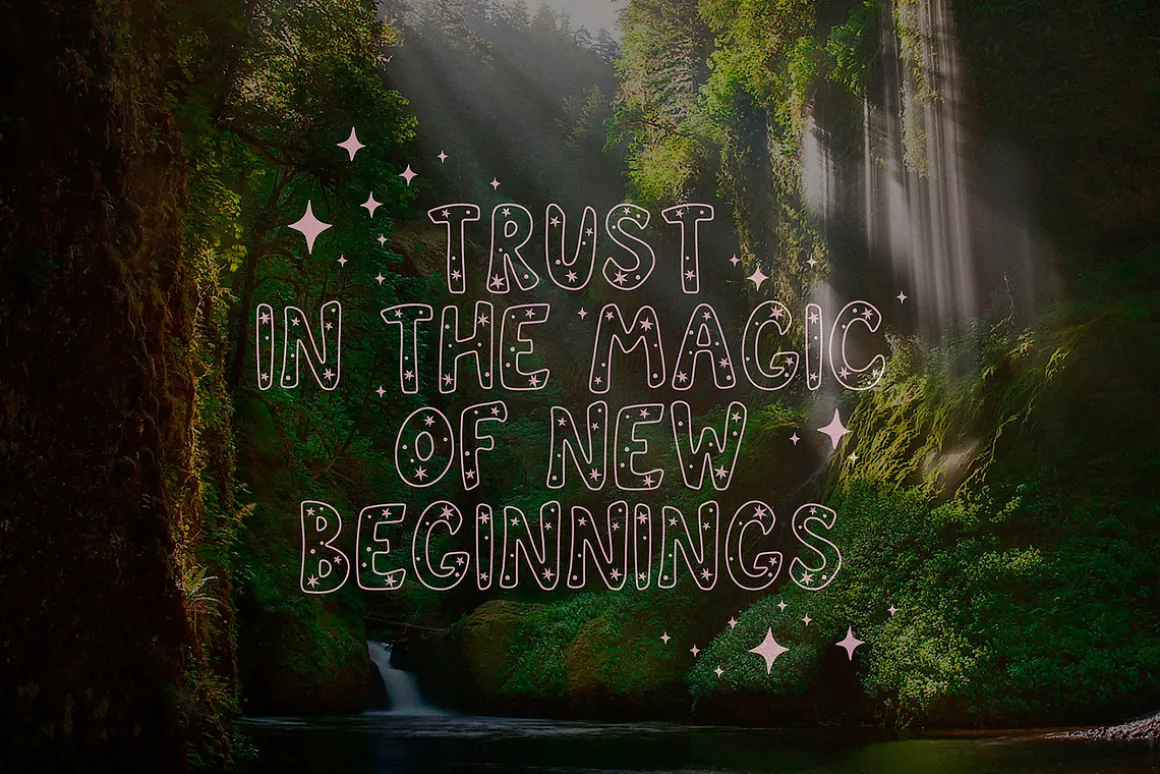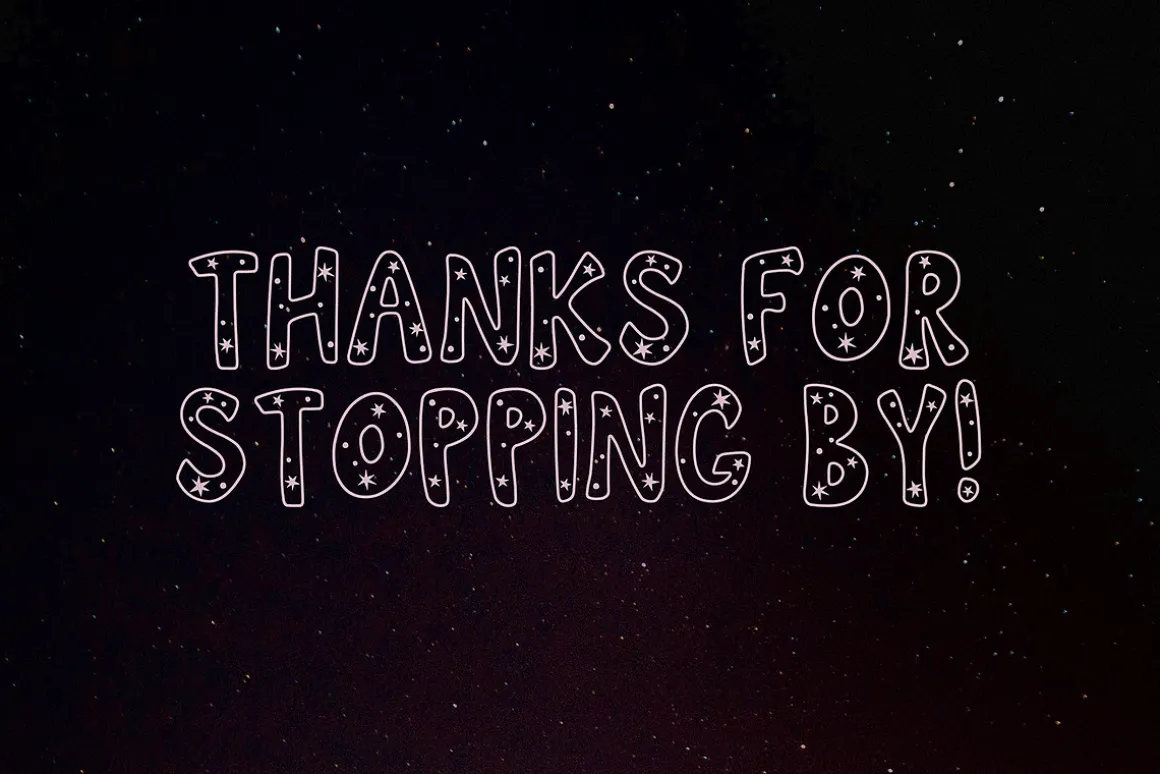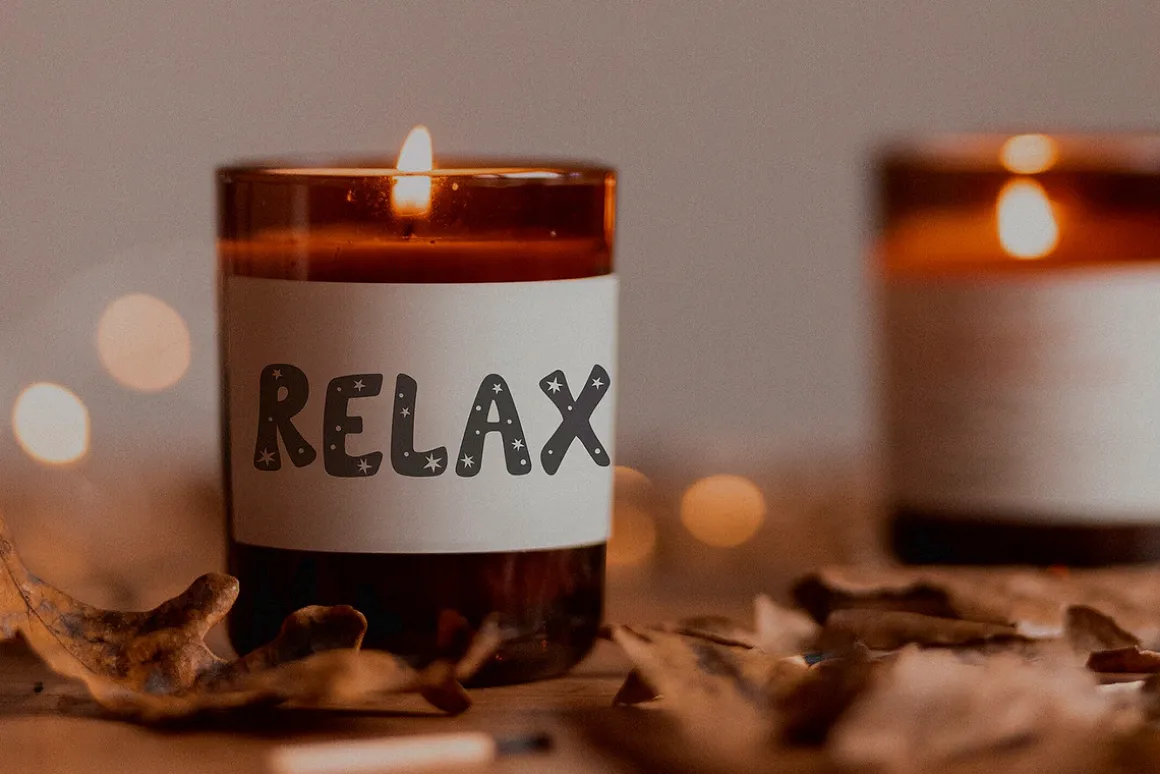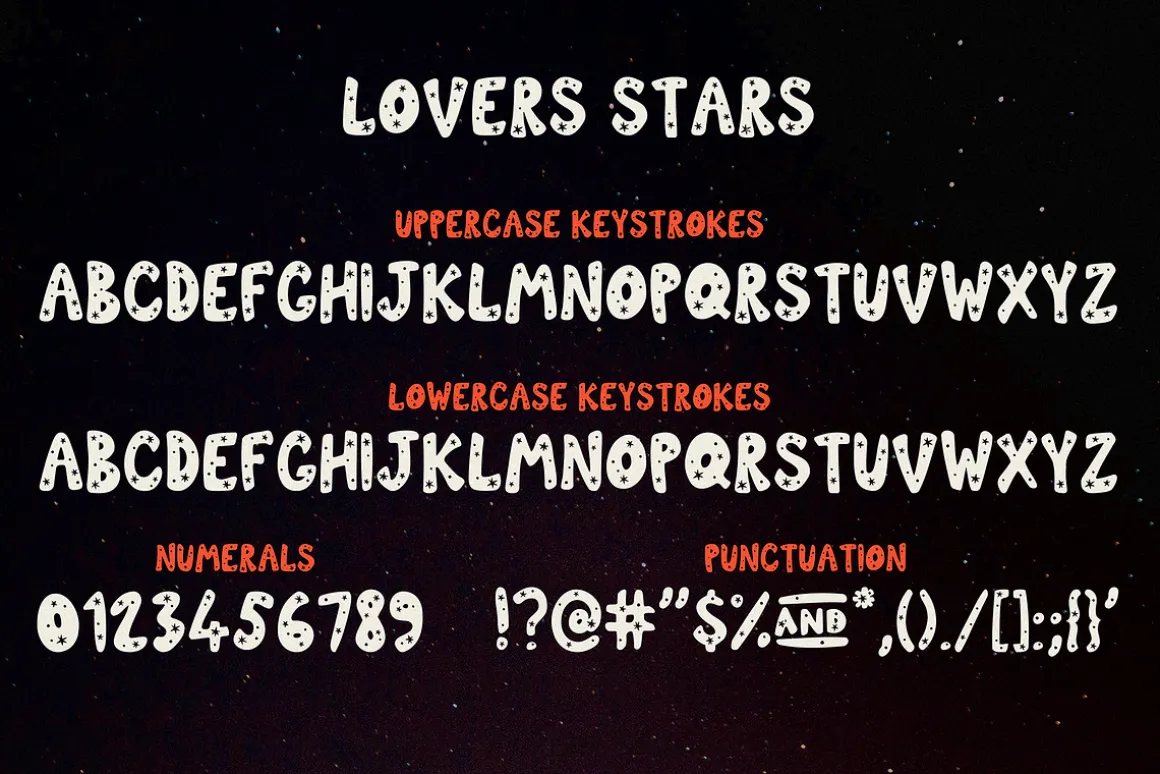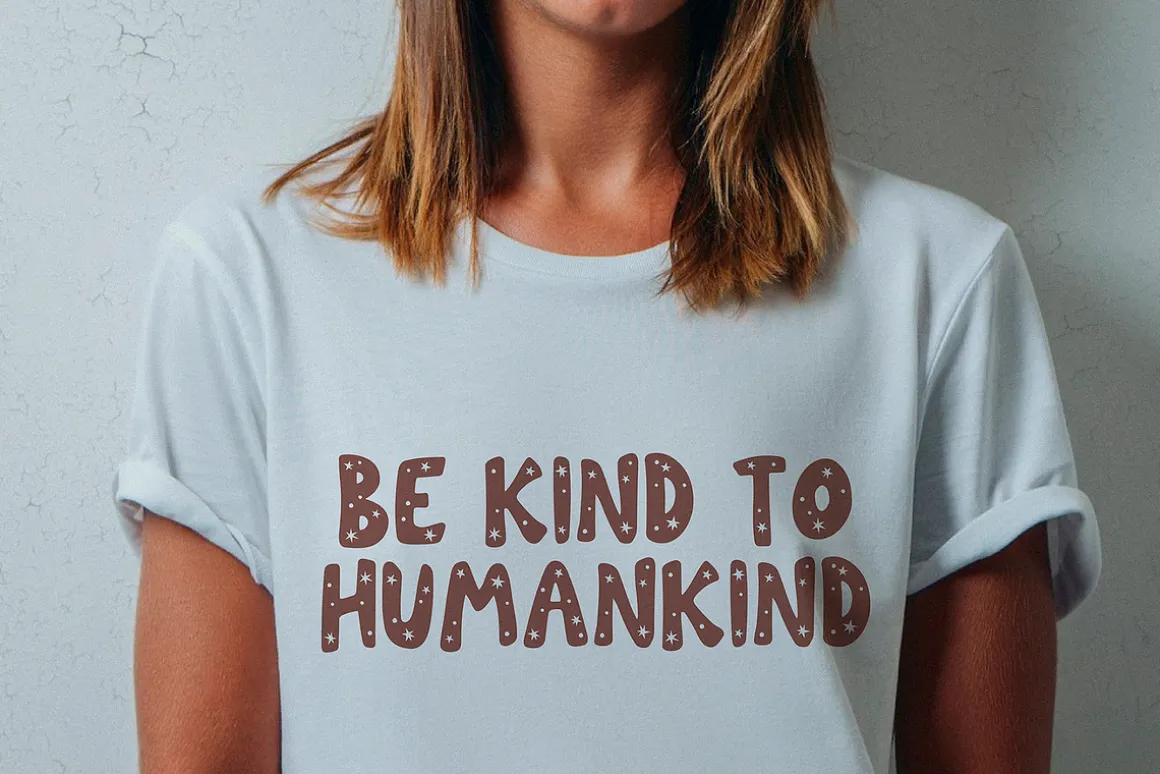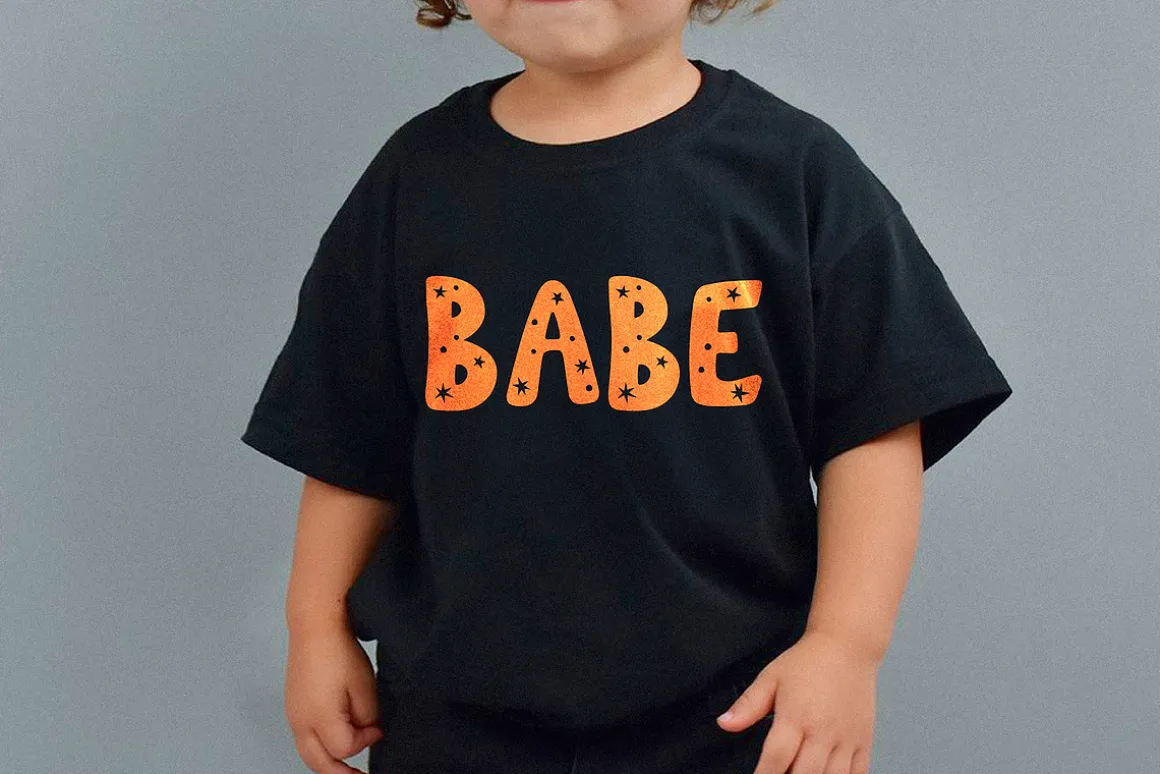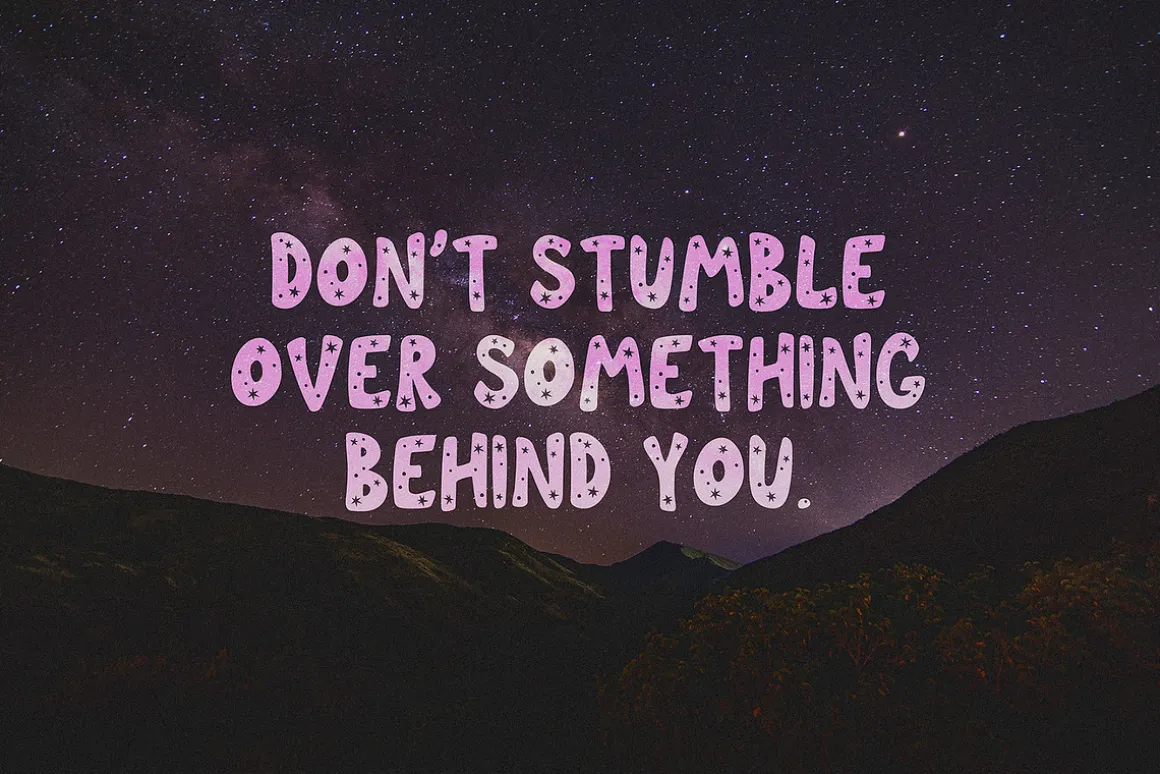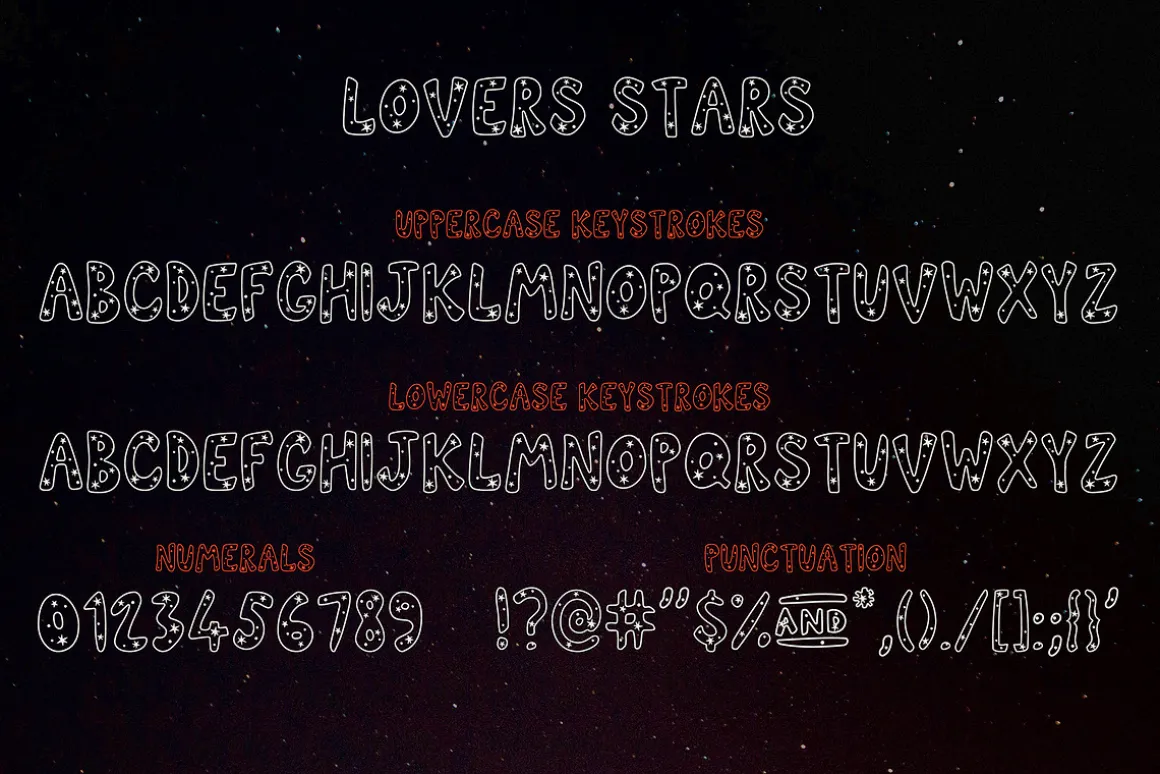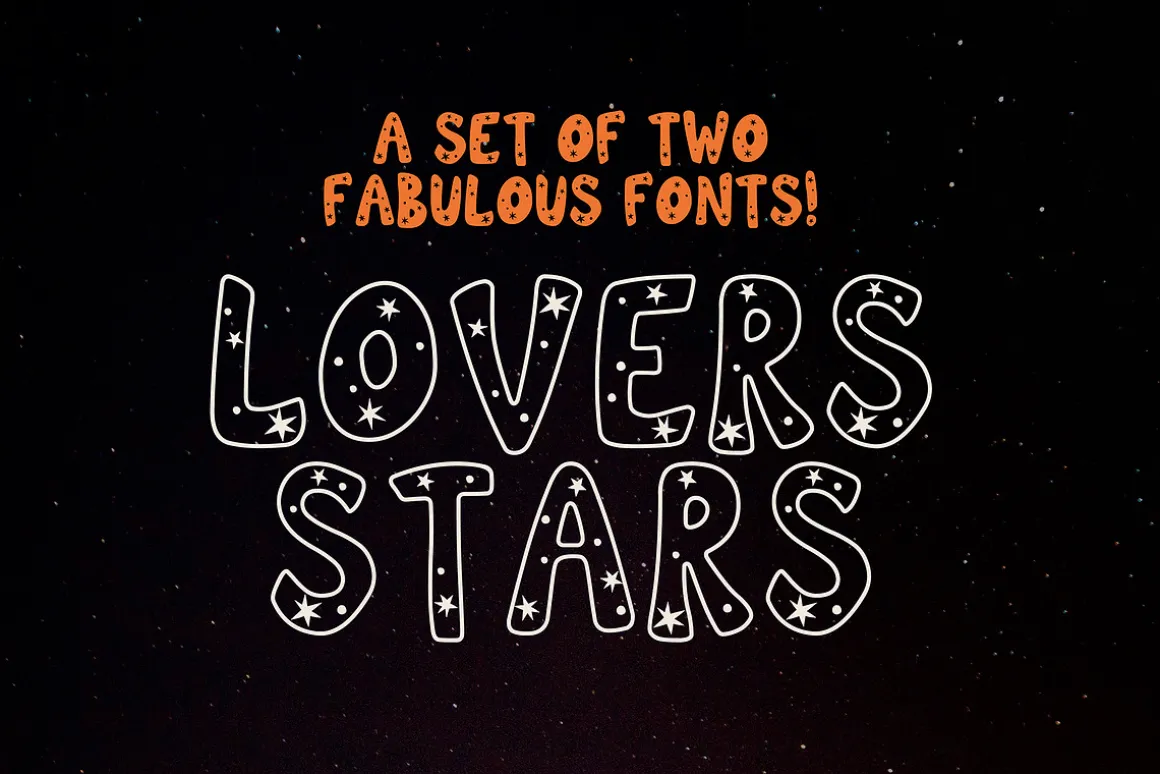
Say Hello to Lovers Stars!! My new a set of twofabulous fonts – Lovers Stars!!Lovers Stars is a set of twoamazing fonts!! This font is made from my original font – Lovers Clouds.
This font is perfect for all your designs, lettering, drawings, signage, stickers, retro designs, shirts and more!
Font Features:
- A-Z; a-z character set;
- numbers and punctuation marks, symbols.